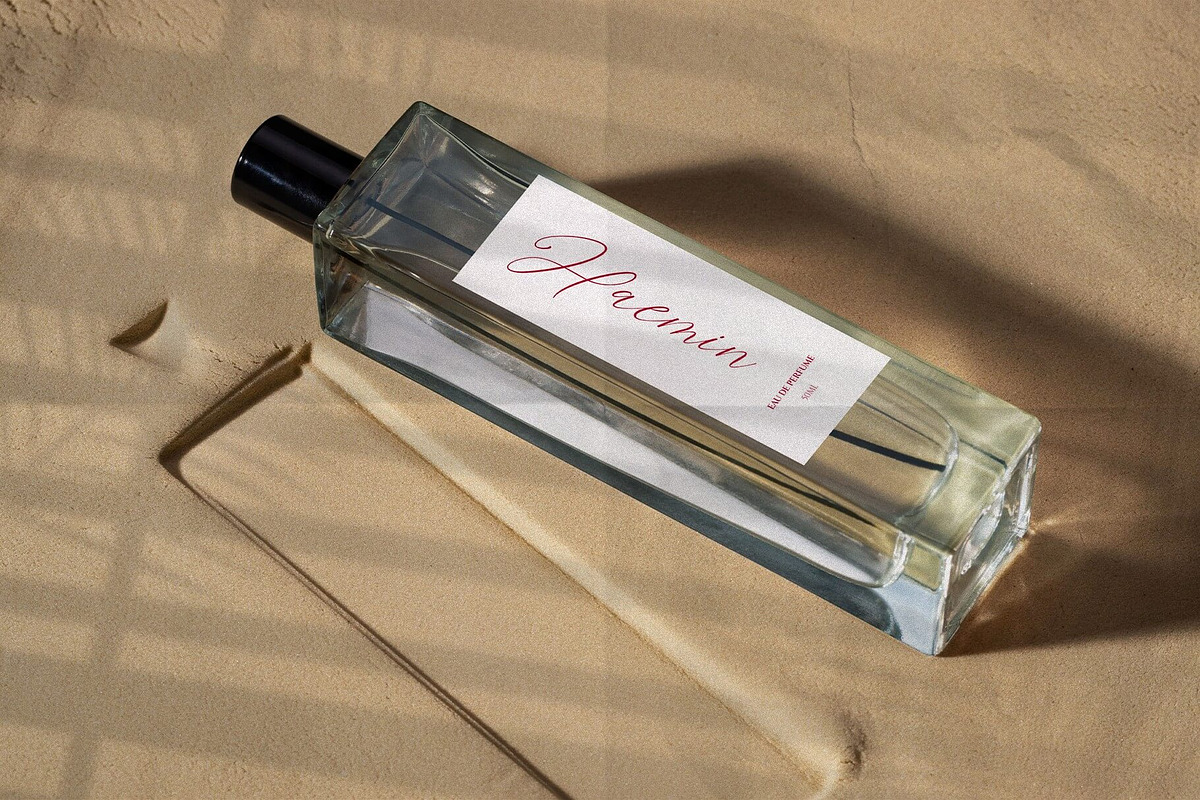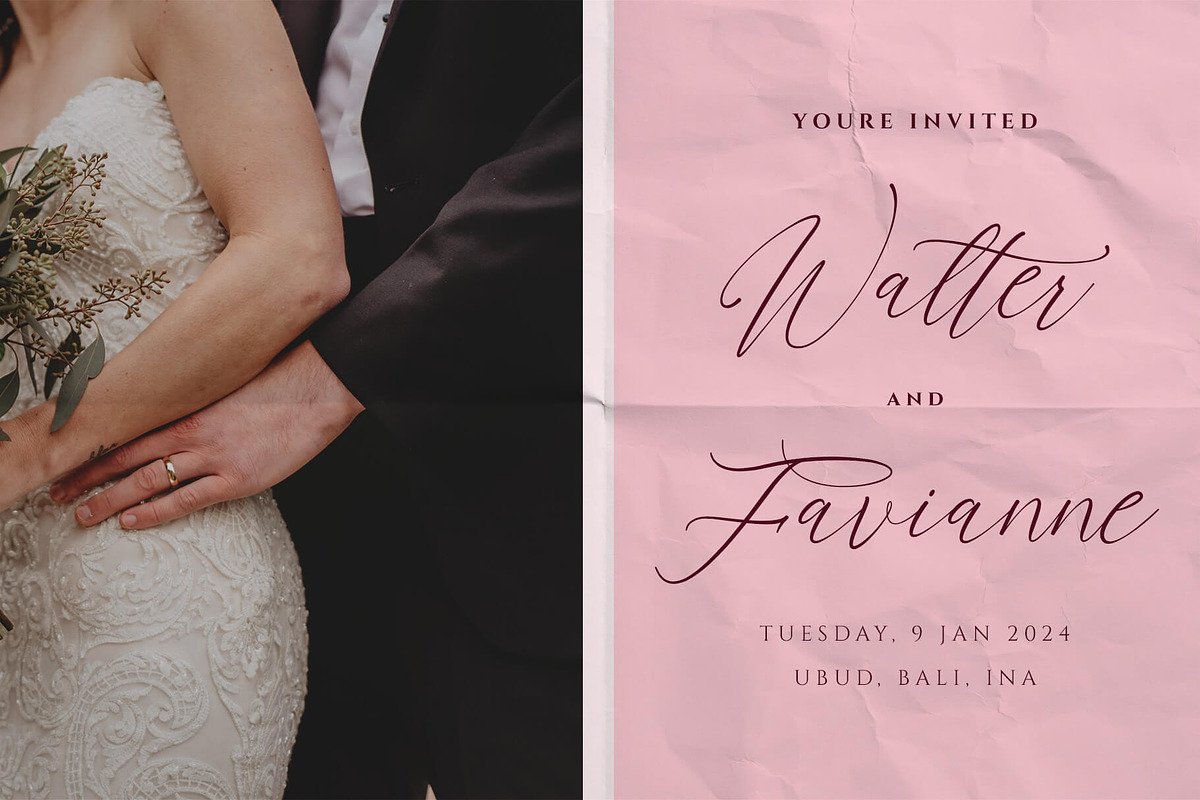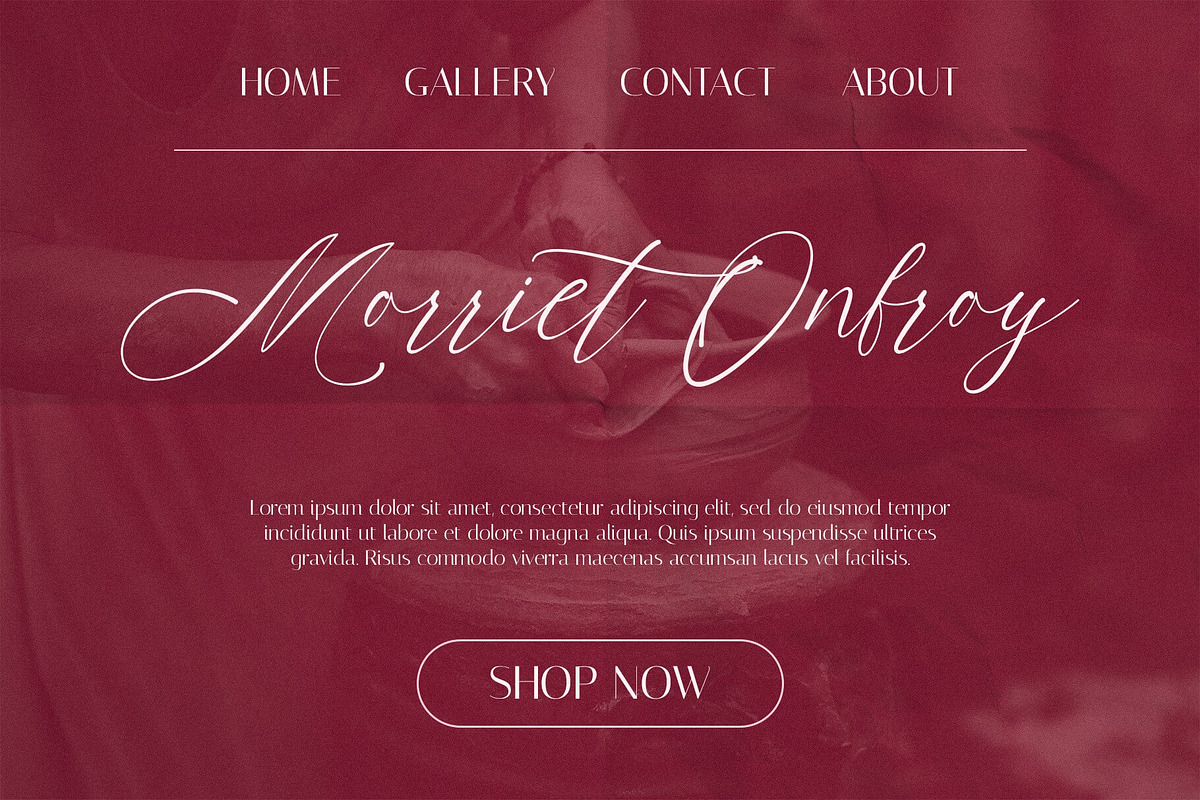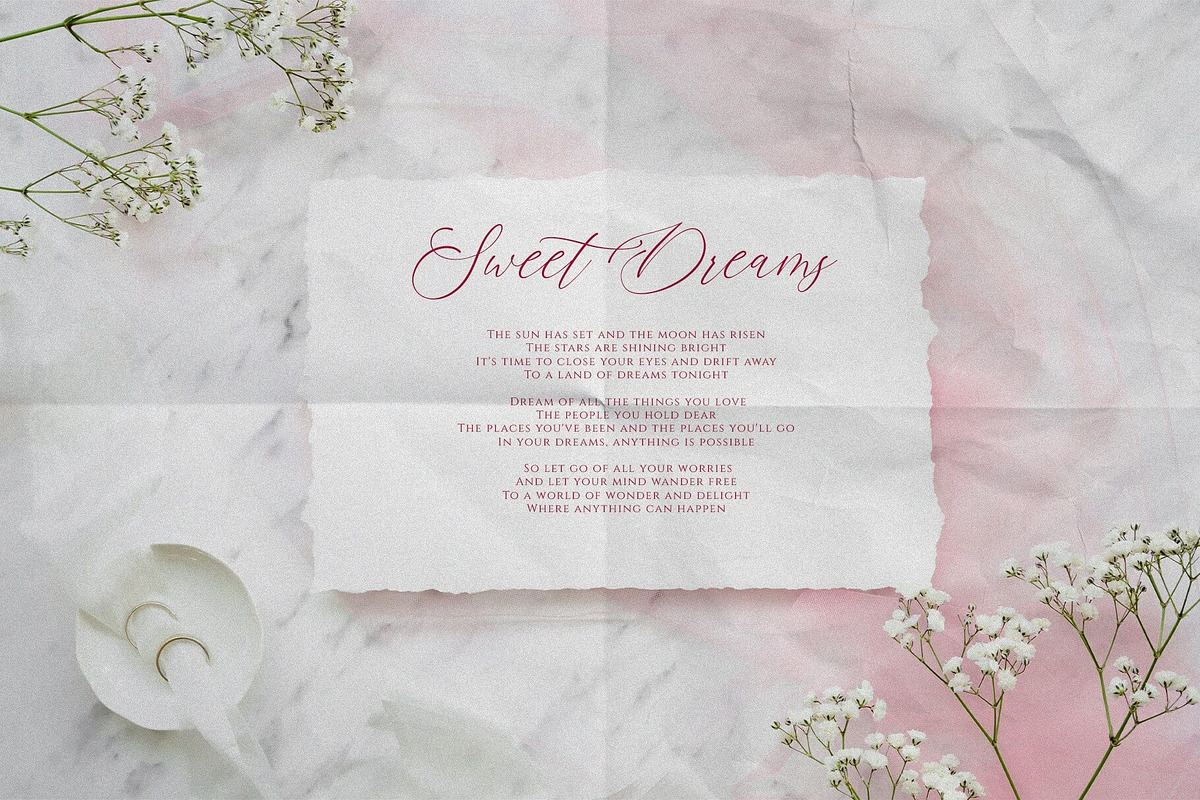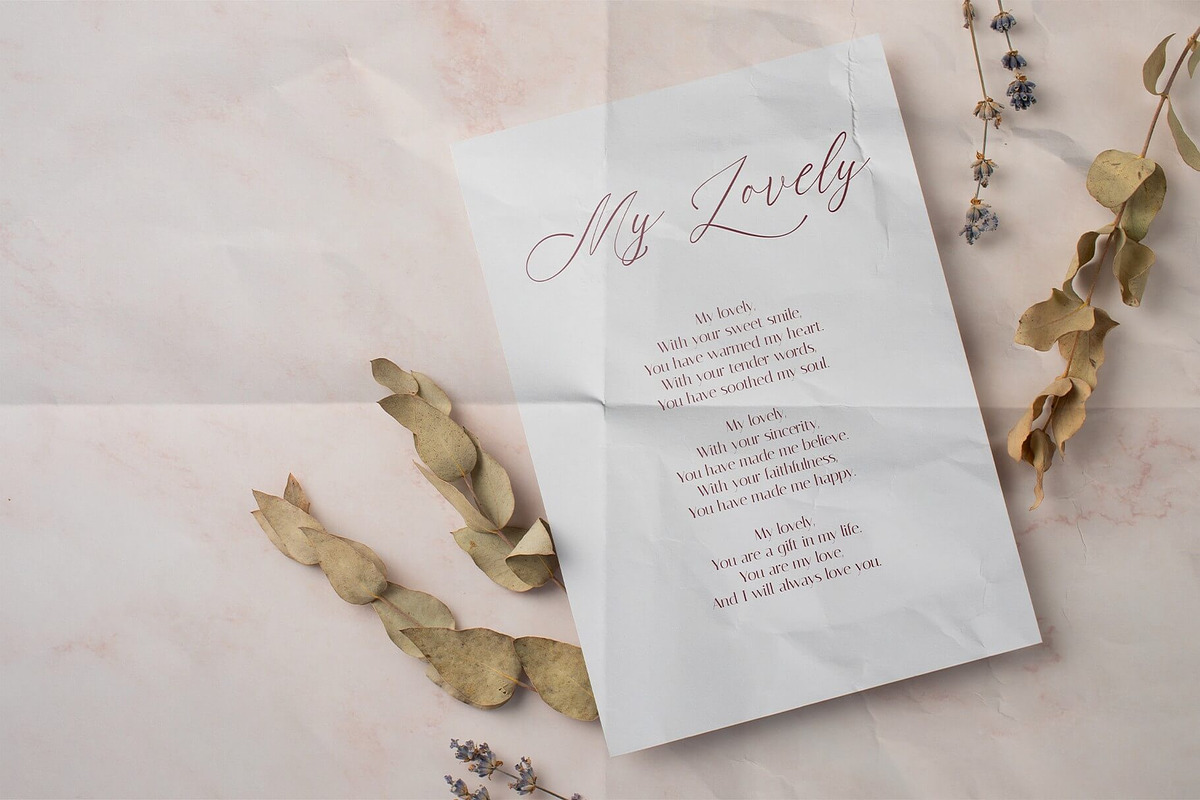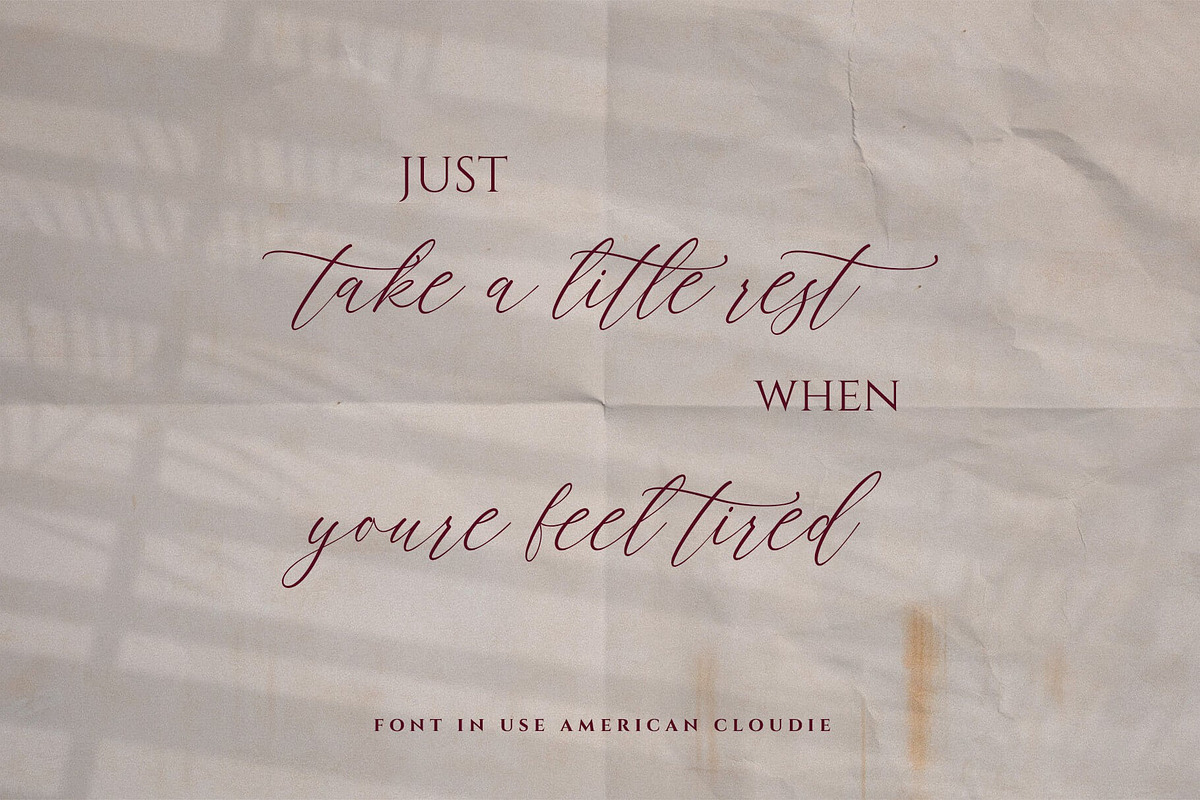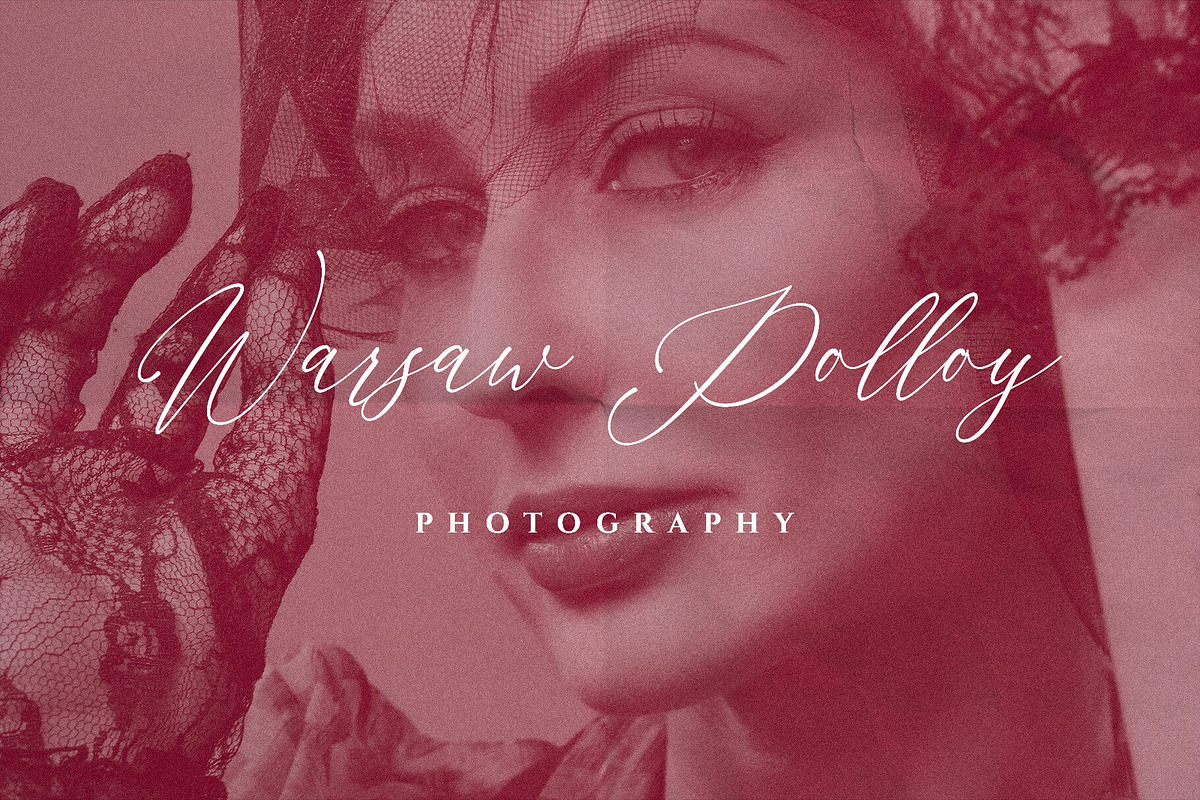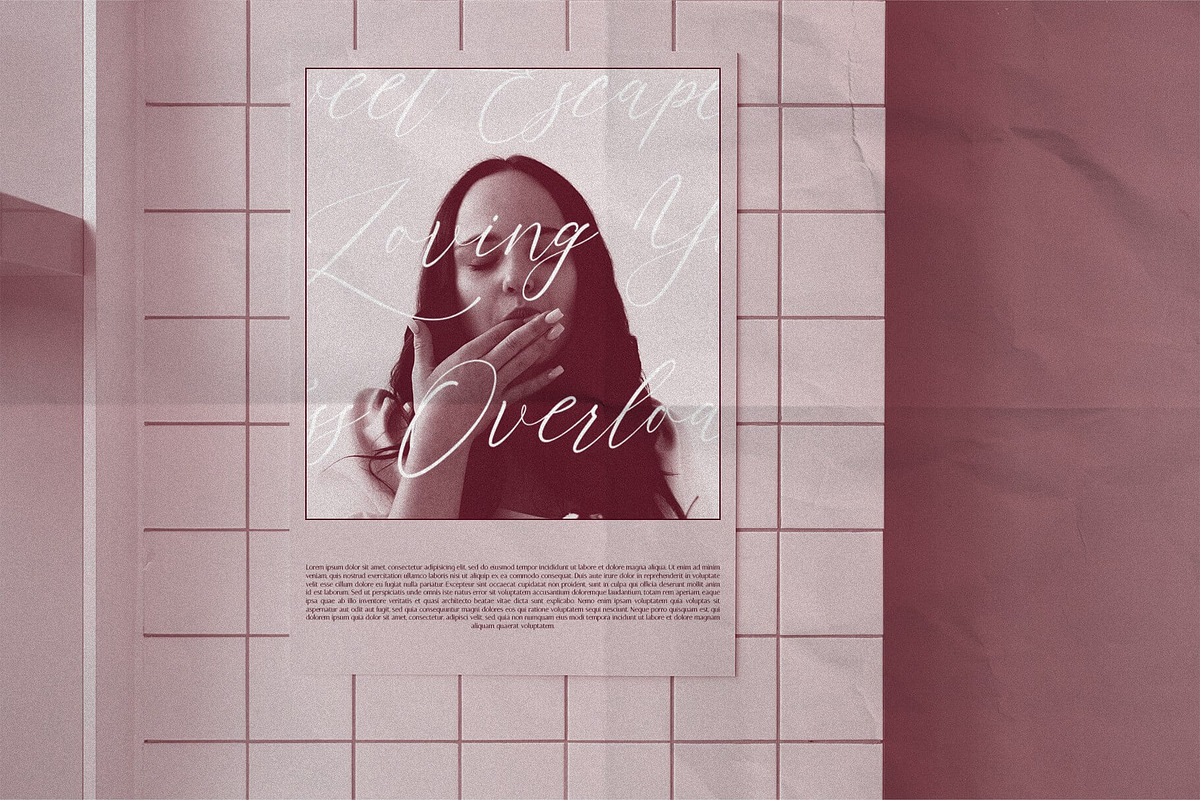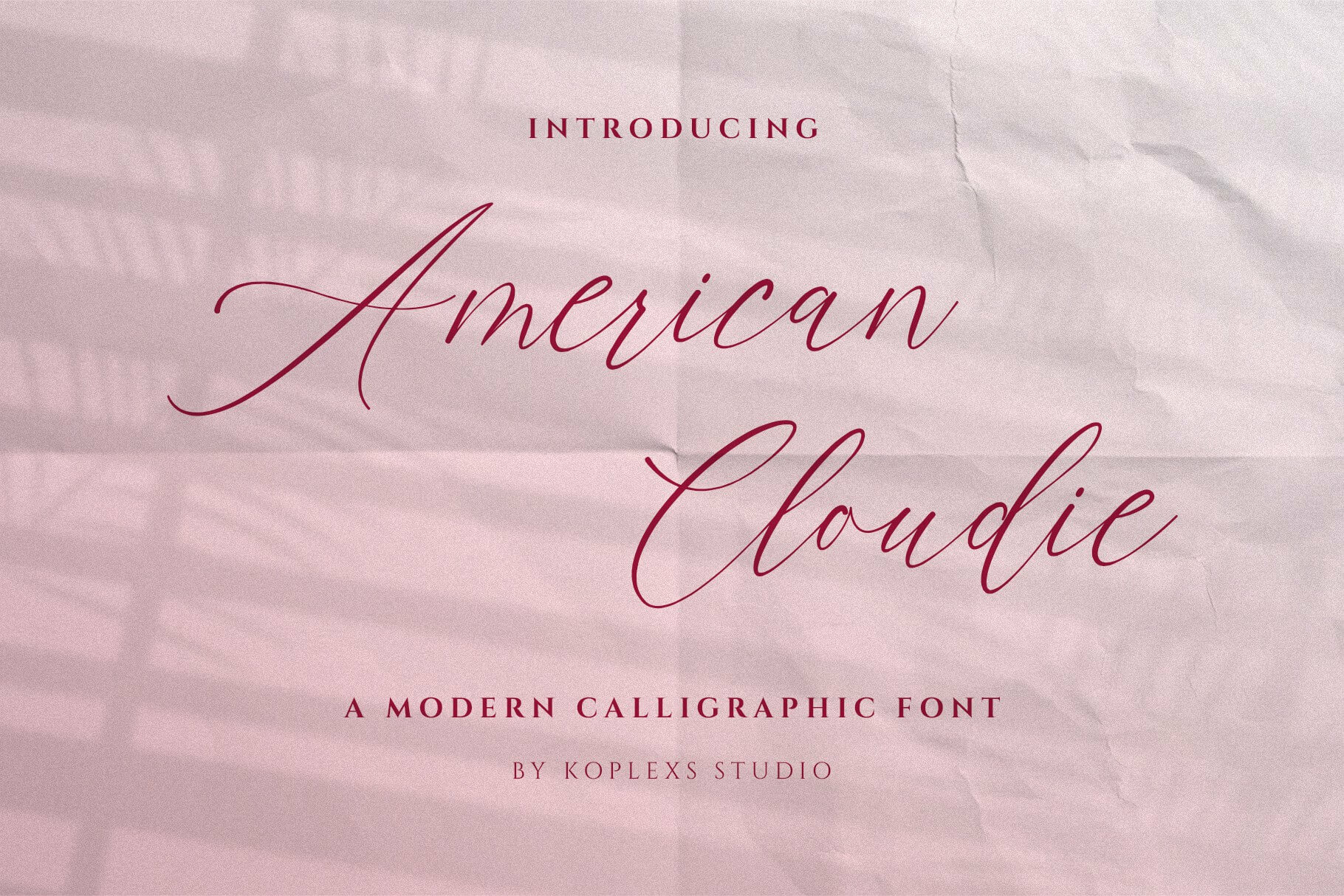
American Cloudie Font
American Cloudie Font - Elegant Script Font
American Cloudie Font is a modern and elegant script font designed to bring a luxurious handwritten feel into your creative projects. With its flowing curves, graceful swashes, and natural signature style, this font is perfect for designers who want typography that feels soft, classy, and timeless.
Created with a balance of modern calligraphy and authentic handwriting aesthetics, American Cloudie delivers beautiful typography for both personal and professional designs. Whether you are building a luxury brand identity or designing romantic wedding stationery, this font adds sophistication to every detail.
This stylish script font works beautifully as a:
Handwriting Font
Signature font
cursive font
wedding font
branding font
cosmetic font
aesthetic font
Calligraphy Font
logo font
elegant font
luxury font
Perfect For :
Wedding invitations
Luxury branding
Beauty & cosmetic packaging
Fashion editorials
Boutique logos
Photography watermark
Social media templates
Product packaging
Business cards
Feminine branding projects
Elegant website headers
Quotes and aesthetic content
Uppercase & lowercase letters
Beautiful ligatures
Elegant alternates
Smooth handwritten flow
Modern calligraphy style
Easy to use for branding and design projects
American Cloudie Font is carefully crafted to create a premium and stylish impression while still maintaining excellent readability. The elegant letterforms make every design feel more personal, romantic, and visually appealing.
If you are looking for modern fonts with a luxurious and feminine touch, American Cloudie is a perfect addition to your font collection.